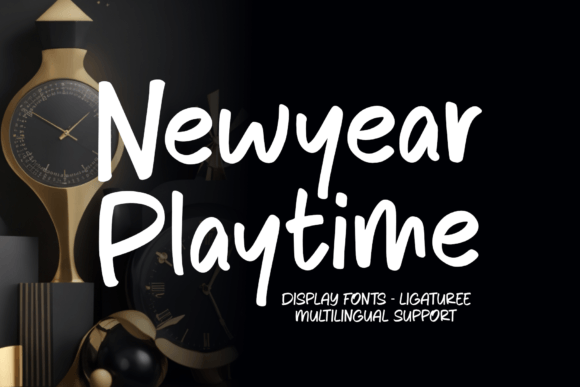
Introducing Newyear Playtime Font: The Ultimate Celebration Companion for Brands
As the clock strikes midnight on New Year’s Eve, the world welcomes a fresh start, filled with hope, excitement, and endless possibilities. What better way to capture the essence of this joyous occasion than with a font that embodies the spirit of fun and celebration? Look no further than Newyear Playtime, a captivating display font designed to add a touch of sophistication and playfulness to any brand or product.
The Birth of a New Era in Typography
Newyear Playtime is more than just a font – it’s an experience. Born from the desire to create a typographic masterpiece that would make brands stand out in a crowded market, this font is the perfect blend of modernity and festivity. Its unique design ensures that your brand’s message is not only conveyed but also felt, leaving a lasting impression on your audience.
Unleashing Creativity with Newyear Playtime
Newyear Playtime is a versatile font that can be used across various platforms and mediums. Whether you’re designing a logo, creating an advertisement, or crafting a social media post, this font is sure to add a touch of elegance and whimsy. Its playful curves and sophisticated lines make it an ideal choice for:
- Logos and branding materials
- Advertising and marketing campaigns
- Social media graphics and posts
- Packaging and product design
- Event invitations and decorations
The Psychology of Newyear Playtime
Colors and fonts have a profound impact on human psychology, influencing our emotions and perceptions. Newyear Playtime is designed to evoke feelings of joy, excitement, and celebration, making it the perfect choice for brands looking to create an emotional connection with their audience. By incorporating this font into your brand’s visual identity, you can:
- Boost brand recognition and recall
- Increase engagement and interaction
- Convey a sense of fun and approachability
- Stand out in a crowded market
Why Newyear Playtime Stands Out
In a world where fonts are a dime a dozen, Newyear Playtime shines bright with its unique features and benefits. Here are just a few reasons why this font is a cut above the rest:
- Playful yet sophisticated design: Newyear Playtime strikes the perfect balance between fun and elegance, making it suitable for a wide range of applications.
- Highly versatile: This font can be used across various platforms and mediums, from digital to print.
- Easy to read and understand: Despite its playful design, Newyear Playtime remains clear and legible, ensuring that your message is conveyed effectively.
- Constantly updated and improved: The creators of Newyear Playtime are committed to refining and expanding the font, ensuring that it stays fresh and relevant.
Real-World Applications of Newyear Playtime
Newyear Playtime is more than just a theoretical concept – it’s a practical solution for brands looking to make a lasting impression. Here are a few examples of how this font can be used in real-world applications:
Celebratory Event Branding
Imagine using Newyear Playtime to brand a New Year’s Eve celebration. The font’s playful and festive design would perfectly capture the essence of the occasion, setting the tone for a fun and memorable experience.
Product Packaging
Newyear Playtime can also be used to add a touch of whimsy to product packaging. Whether you’re launching a new product or rebranding an existing one, this font is sure to make your product stand out on store shelves.
Social Media Campaigns
In the digital age, social media is a crucial platform for brands to connect with their audience. Newyear Playtime can be used to create eye-catching social media graphics and posts that capture the attention of your target audience.
In conclusion, Newyear Playtime is a game-changing font that can elevate your brand’s visual identity and make a lasting impression on your audience. Its unique blend of playfulness and sophistication makes it an ideal choice for brands looking to stand out in a crowded market. Whether you’re looking to create a logo, design packaging, or craft social media posts, Newyear Playtime is the perfect companion for your brand’s journey.